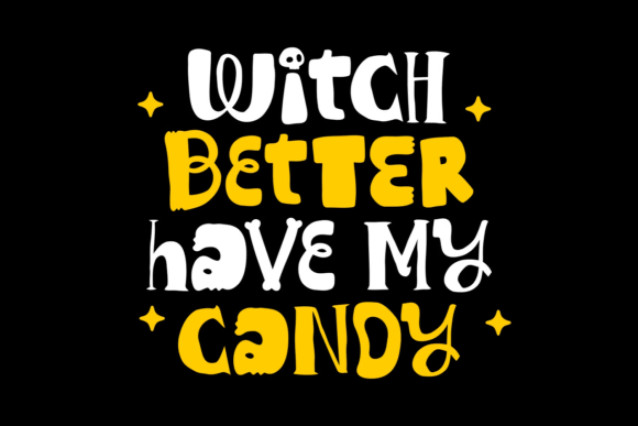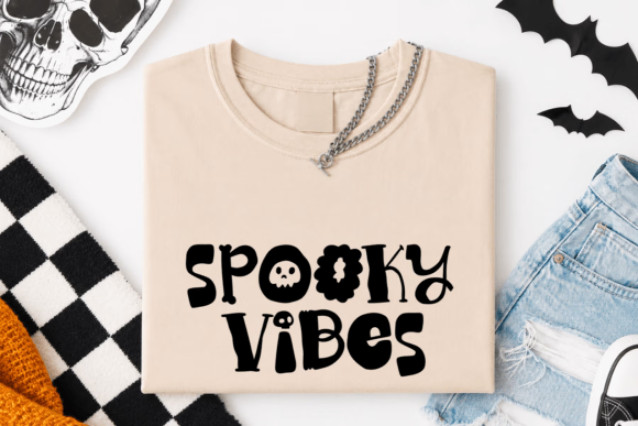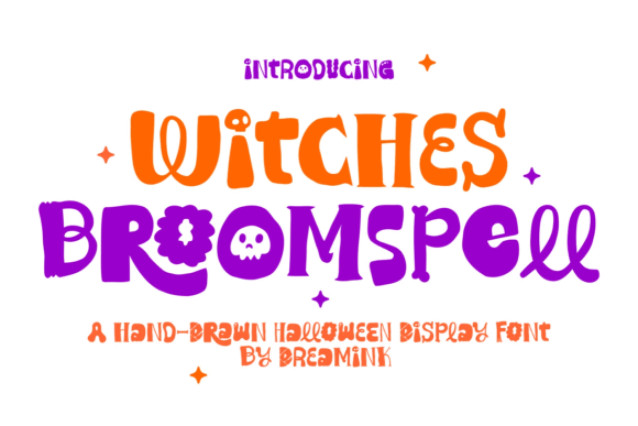
Imbue your artistry with a dash of the uncanny with “Witches Broomspell”, a bewitching Halloween display typeface stirred up by witchcraft, spectral spells, and the enigmatic allure of autumn nights. Exuding mischievous charm through its whimsically irregular, hand-drawn letterforms, sassy curves, and eerie-yet-adorable details, this font breathes life into each project with its spellbinding handmade personality.
Ideal for Halloween themed illustrations, witch-infused artworks, mysterious invitations, festive decor, apparel designs, decals, DIY Cricut endeavors, sublimation, posters, greeting cards, social media visuals, logos, and seasonal crafts. Its idiosyncratic contours and fantastical Halloween accents infuse a sense of playful mystery, magic, and gratifying eeriness, making “Witches Broomspell” exceptionally entertaining for conjuring designs.
Whether your project is a stirring Halloween collection, a haunted soiree invite, eerie merchandise, or magical craftwork, “Witches Broomspell” is primed to sprinkle its bewitching charm onto your creative endeavors. Let the mystery unfurl – bewitch your designs and set the Halloween enchantment in motion with “Witches Broomspell”!